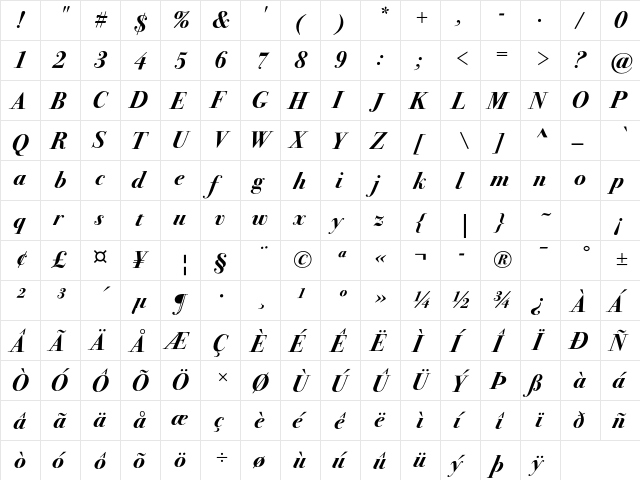
Bodoni Svntytwo ITC Std BoldIt
| Designer | Janice Fishman, Holly Goldsmith, Jim Parkinson, Sumner Stone |
Design Context for Bodoni Svntytwo ITC Std Typeface
Bodoni Svntytwo ITC Std takes a measured approach to typography — its balanced proportions and neutral character make it a reliable workhorse for both digital and print work. Its bold stroke weight gives it real presence on the page.